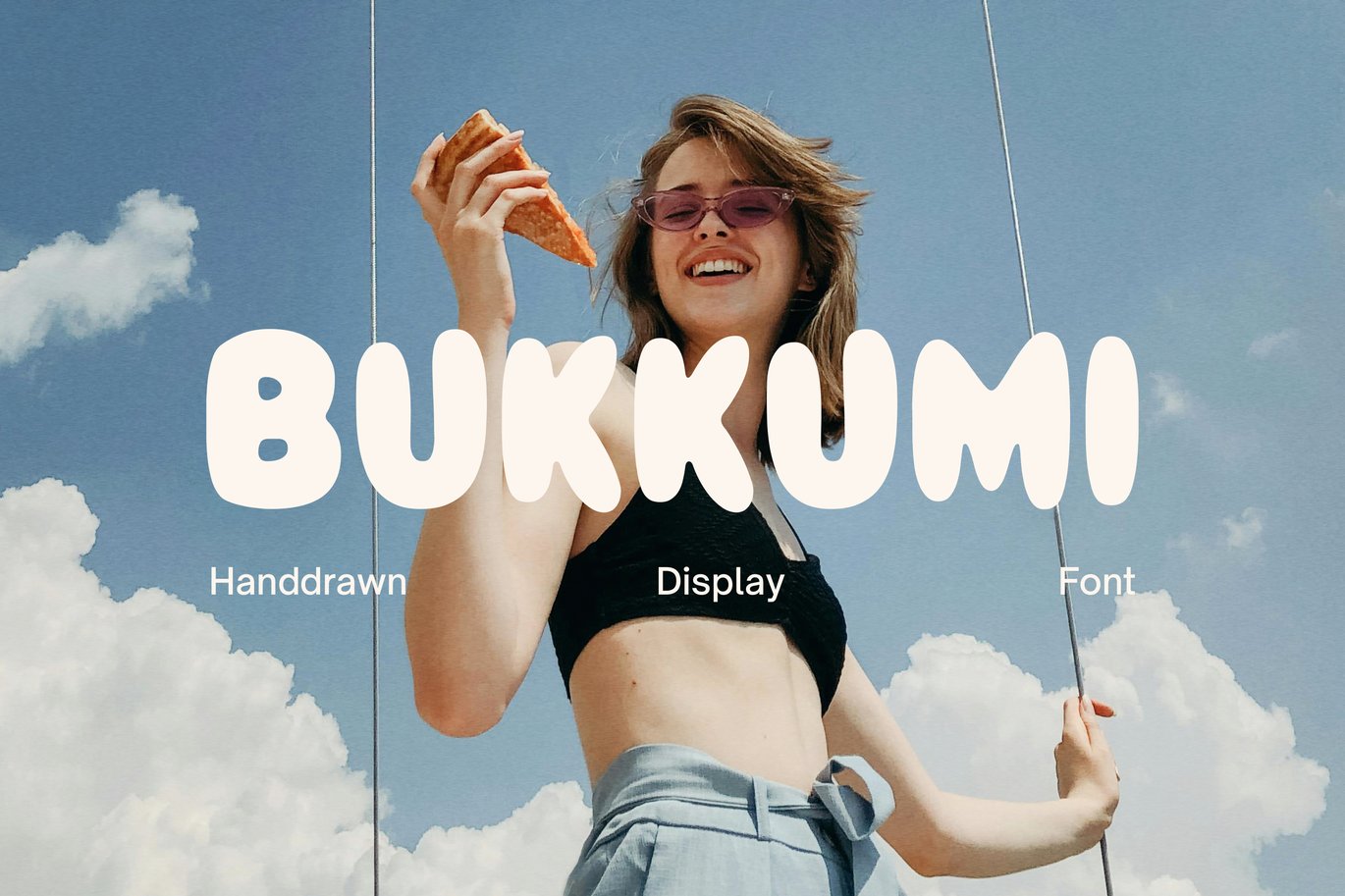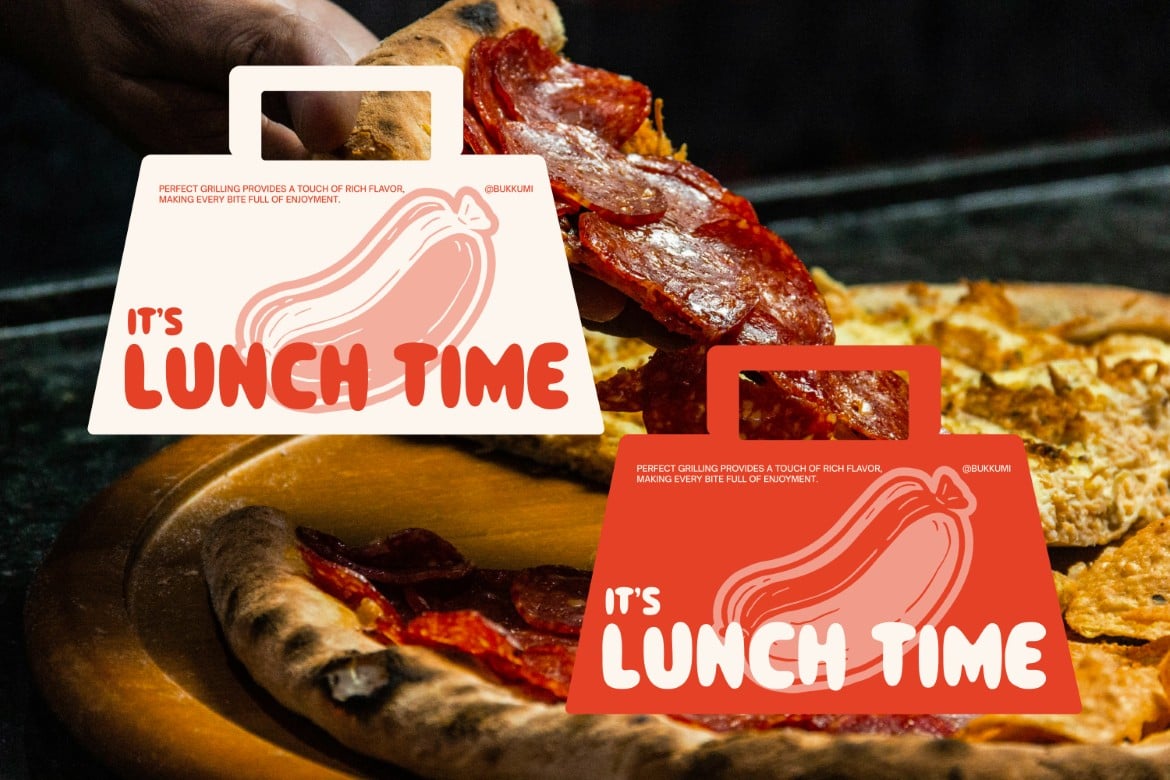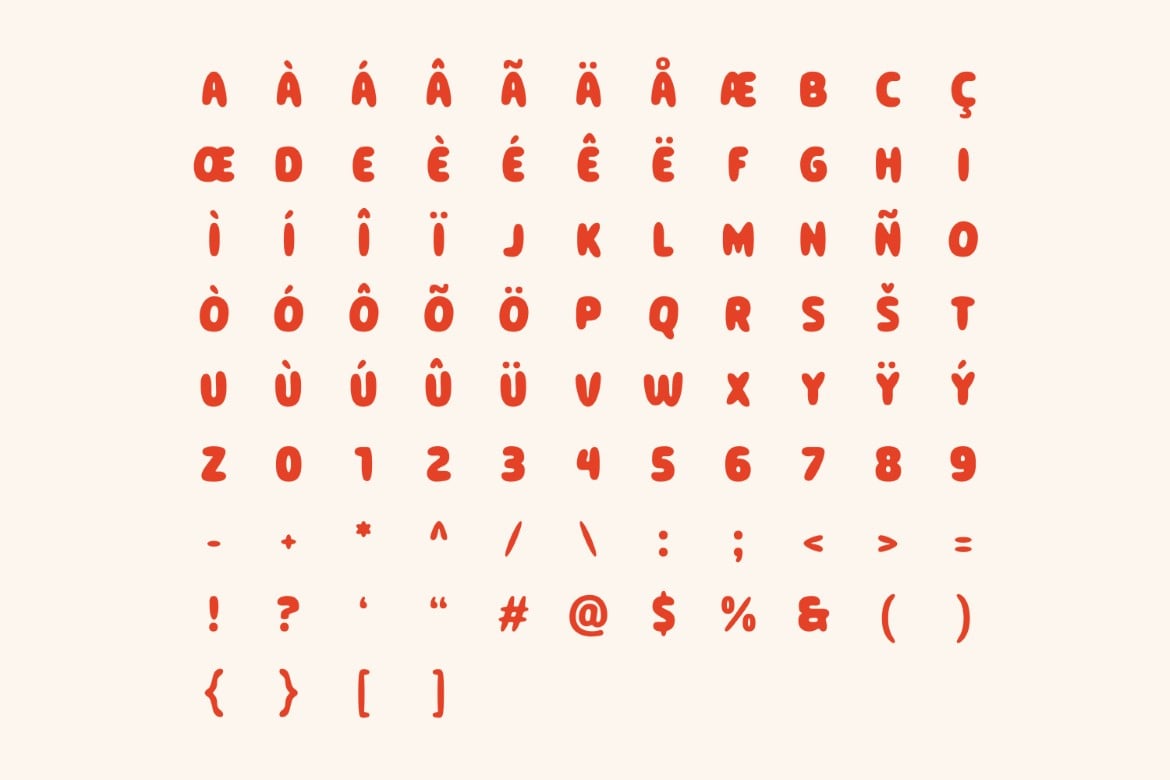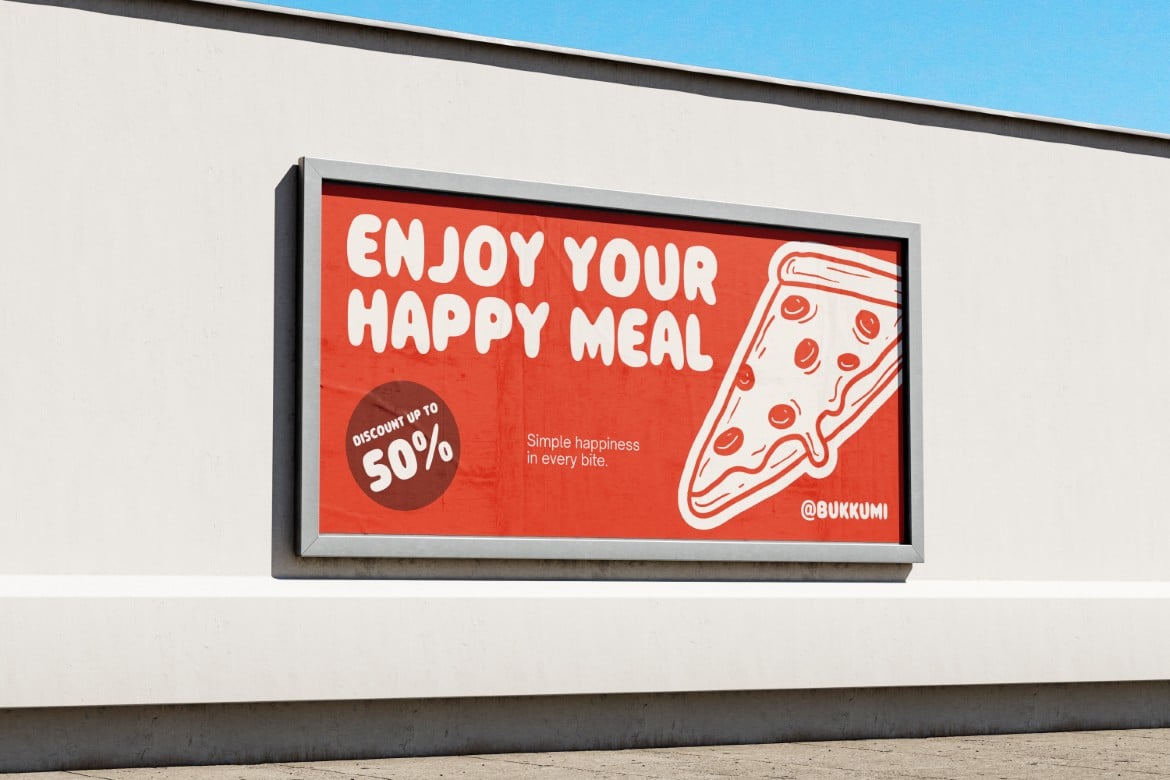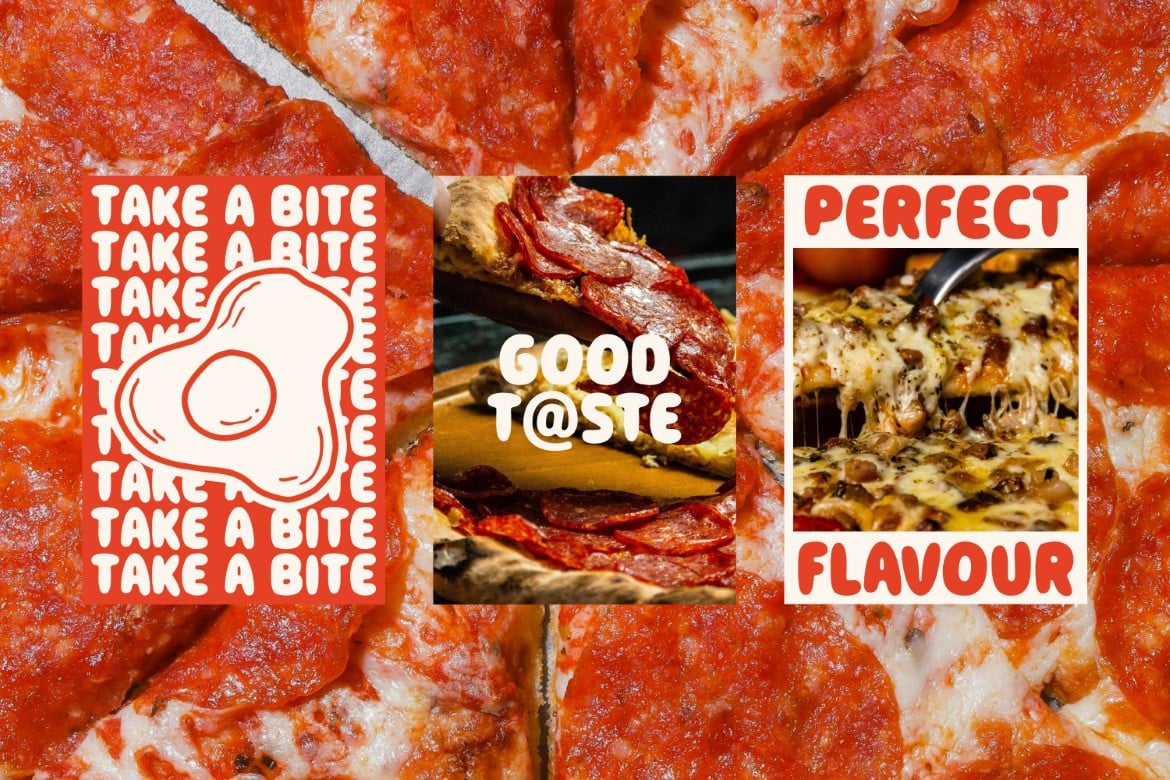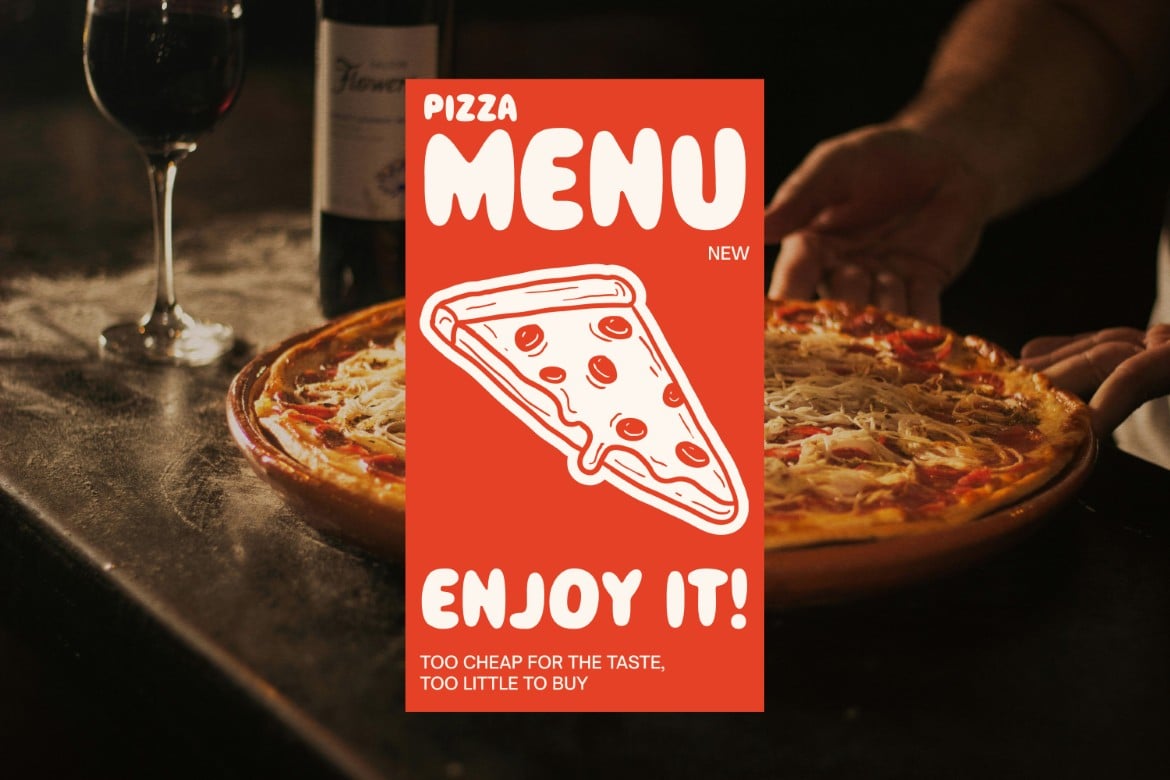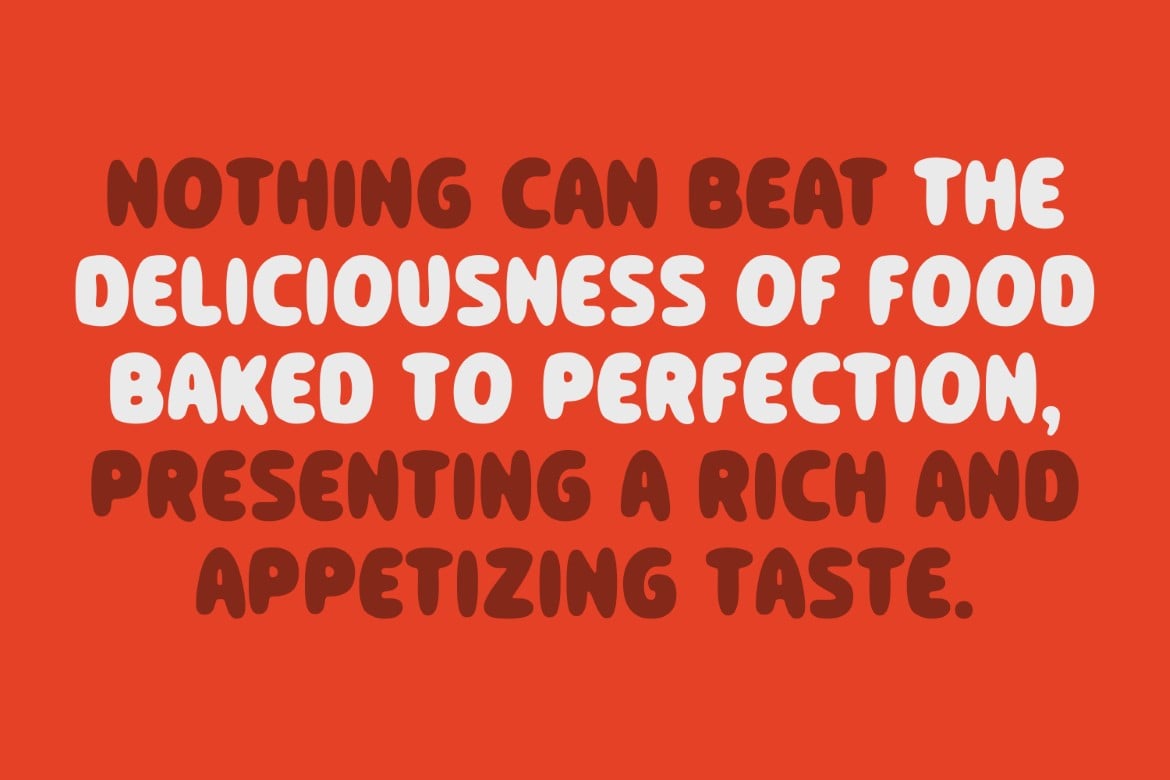
Bukkumi – Handdrawn Display Font
Bukkumi is a fun and handdrawn display font that’s perfect for adding a touch of personality to your projects. This playful font is ideal for creating logos, signage, packaging, menus, and more! With its whimsical style, Bukkumi will help your designs stand out from the crowd.